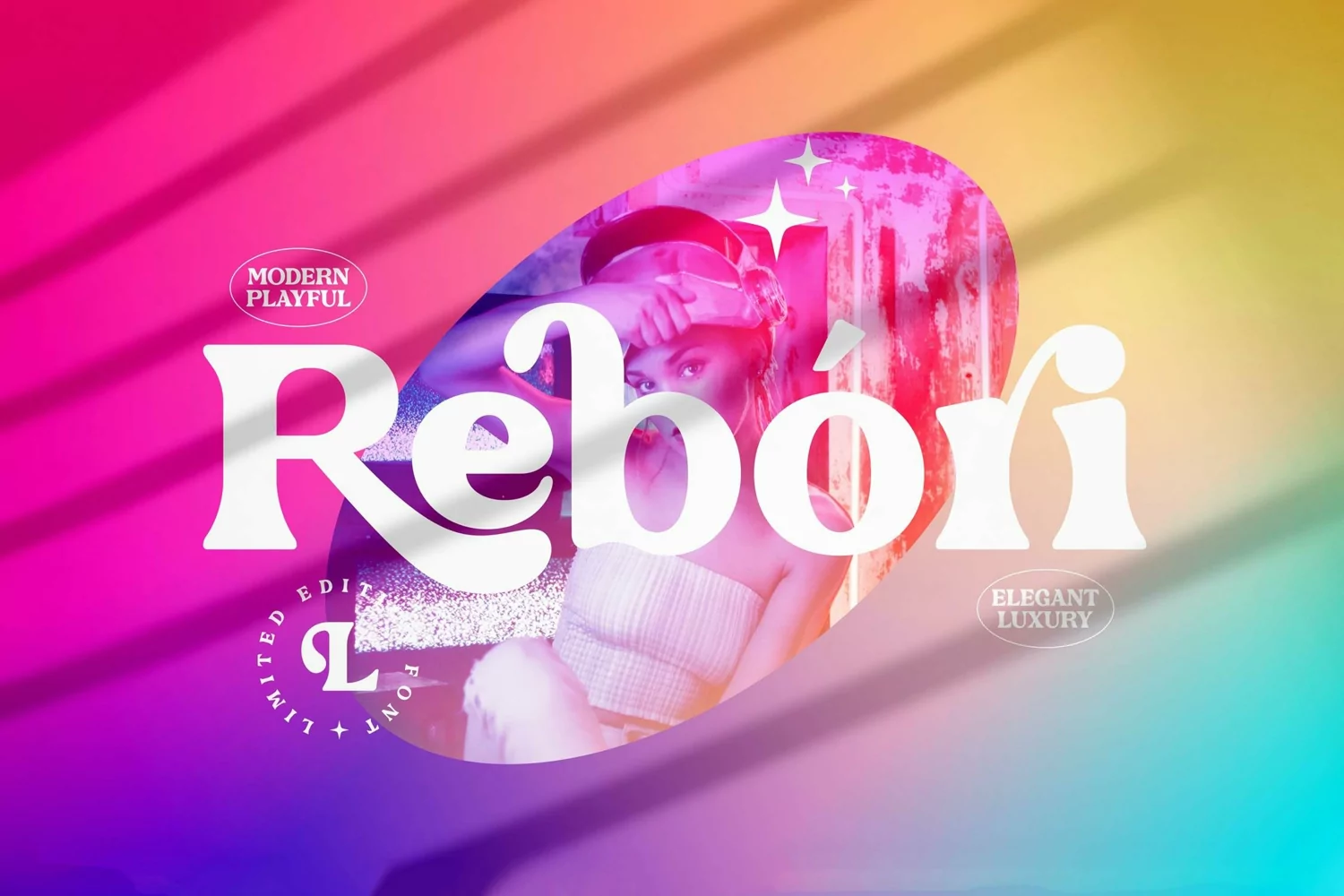
Rebori
Rebori Italic
Proudly present Rebori Typeface, created by StoryType, A decorative typeface that has own unique style & modern look.
This typeface is perfect for an elegant & luxury logo, book or movie title design, fashion brand, magazine, clothes, lettering, quotes, and so much more.